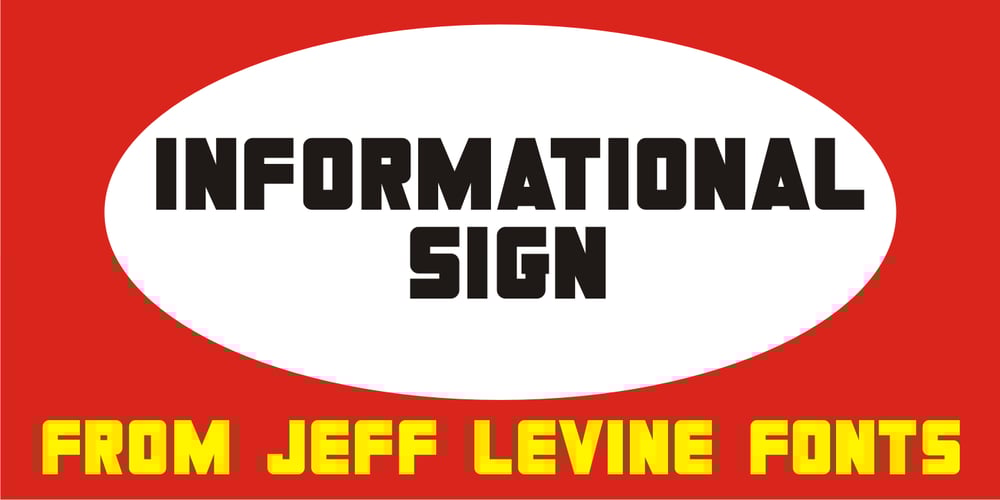
Informational Sign JNL Font Family was designed by Jeff Levine and published by Jeff Levine. Informational Sign JNL contains 1 styles and family package options. A vintage metal sign saying “No Dogs Allowed” was the model for the ultra-bold Art Deco-influenced lettering comprising Informational Sign JNL.